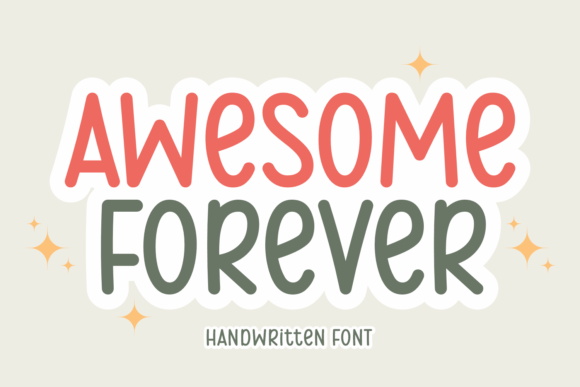
The Awesome Forever Font: A Fun Handwritten Font to Bring Your Designs to Life!
An Honest Review of Awesome Forever
What I Love About Awesome Forever ✨
- ✅ Unique and playful style: Awesome Forever has a one-of-a-kind handwritten style that’s perfect for designs that need a personal touch.
- ✅ Highly versatile: This font can be used for a wide range of design projects, from promotional materials to social media posts, storybooks, and more.
- ✅ Easy to read: Despite its playful nature, Awesome Forever is surprisingly easy to read, making it perfect for longer texts.
- ✅ OpenType features: This font comes with a range of OpenType features, including glyphs and stylistic alternates, which allow for even more customization.
- ⚠️ Limited use in formal designs: While Awesome Forever is perfect for playful designs, it may not be the best choice for more formal projects, such as corporate branding or official documents.
- ⚠️ Some characters may require adjustment: As with any font, some characters may require adjustment to get the perfect spacing and alignment.
The Backstory of Awesome Forever
Awesome Forever was designed by a team of creatives who wanted to create a font that would bring a smile to people’s faces. Inspired by the playful, handwritten fonts of the past, they set out to create a font that would be both fun and functional. After months of work, Awesome Forever was born – a font that’s perfect for designs that need a personal touch.